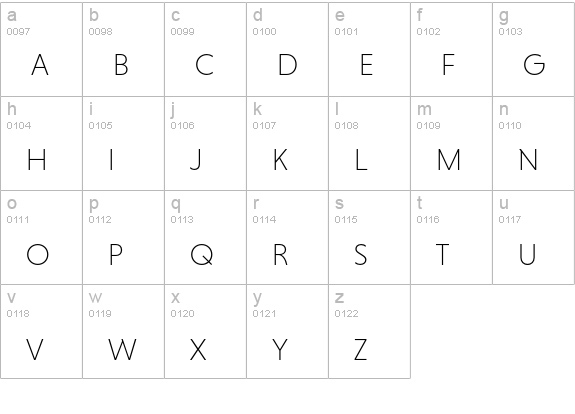
Niveau Grotesk ExtraLight Small Caps is an airy, ultra-refined variant in the Niveau typeface family \xE2\x80\x94 well suited to minimalist headlines and refined display use.
Niveau Grotesk ExtraLight Small Caps font is a sleek and modern typeface that exudes sophistication and elegance. With its clean lines and refined design, this font is perfect for creating a minimalist and contemporary look in your projects. The ExtraLight weight adds a touch of delicacy and refinement to your typography, making it ideal for use in headings, titles, and other display purposes. What's even better is that Niveau Grotesk ExtraLight Small Caps font is available for free download at FontsMarket.com. This means you can easily access this high-quality typeface without any cost, making it a great choice for designers, creatives, and typographers looking to elevate their work with a premium font option. Whether you're designing a website, creating print materials, or working on branding projects, Niveau Grotesk ExtraLight Small Caps font will add a touch of sophistication and style to your designs.